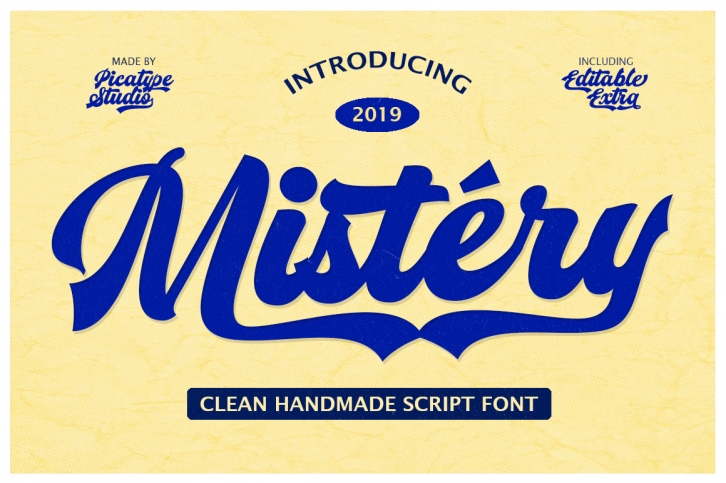
Mistery is a beautiful font that was designed by Picatype. It's a great choice for designers and creatives who need such a font. It was released on March 20, 2019 and the file size is 4.63 MB. Mistery may give a more youthful, expressive and casual look to your project. It is a very beautiful, refined, elegant, and high-quality font.